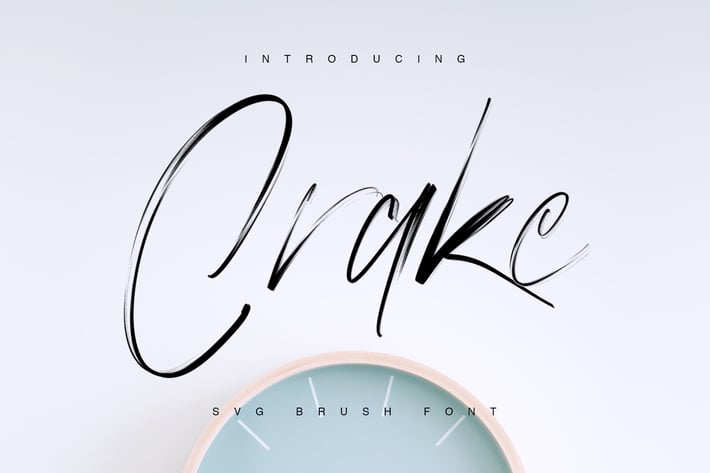
Crake - Brush SVG Font
Give your designs an authentic brush handcrafted feel. "Crake Brush SVG Font" is perfectly suited to signature, stationery, logo, typography quotes, magazine or book cover, website header, flyer, clothing, branding, packaging design and more.